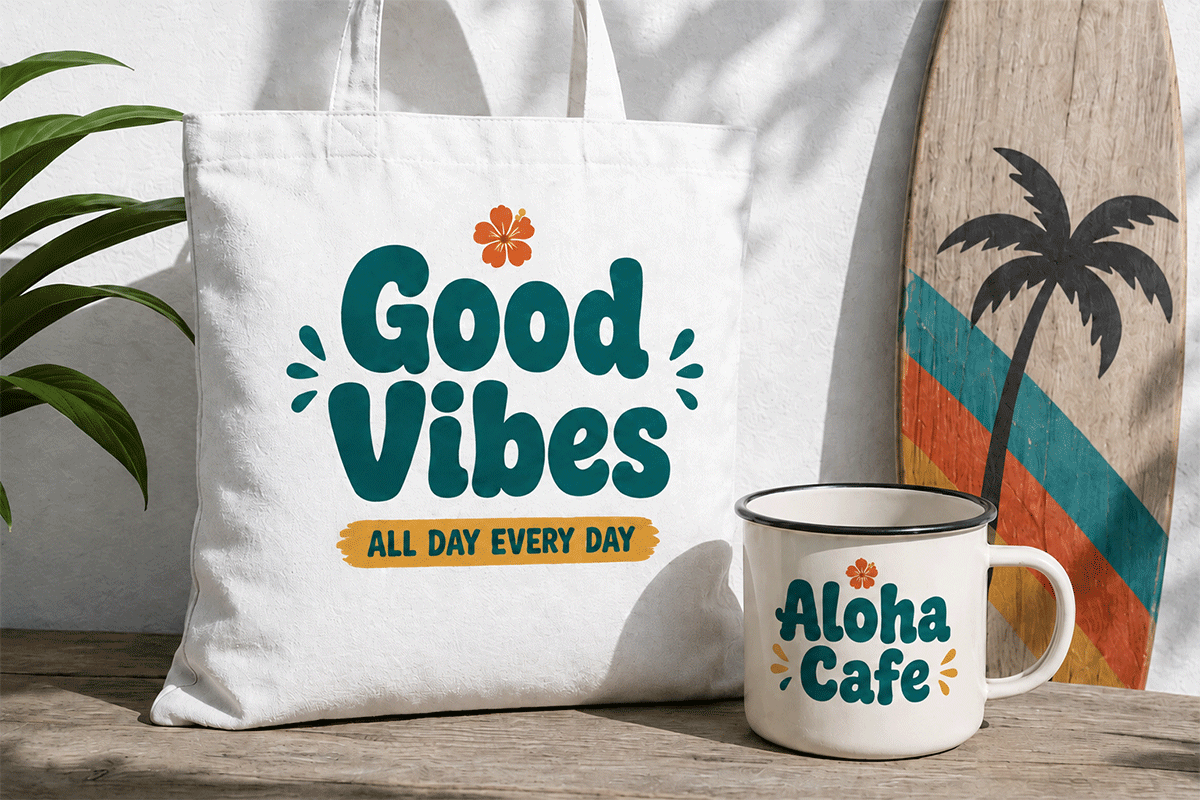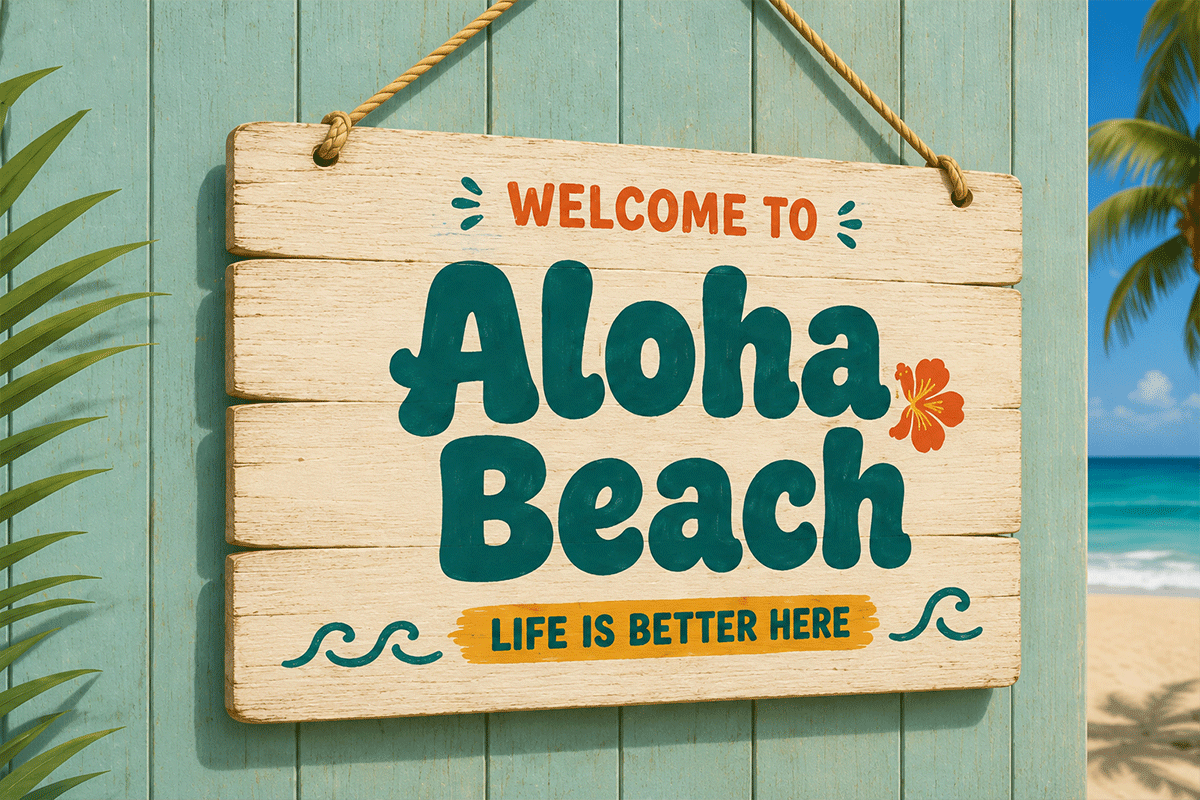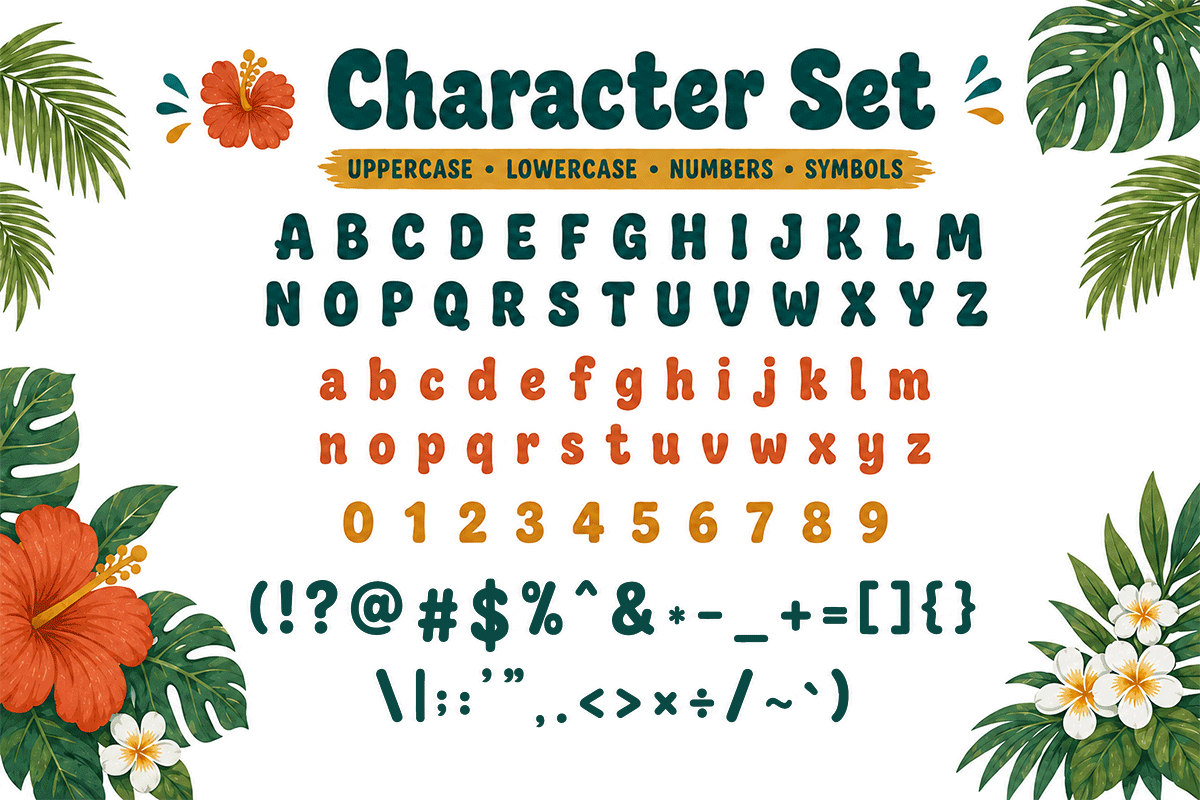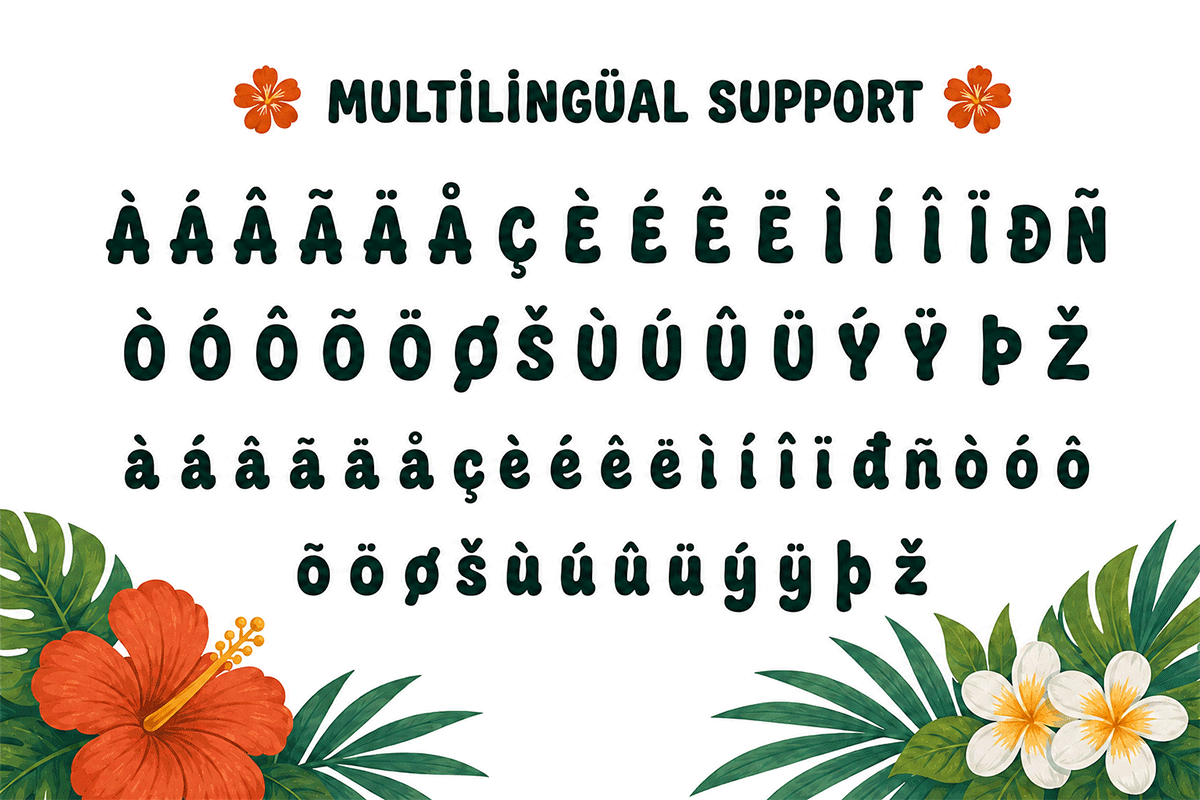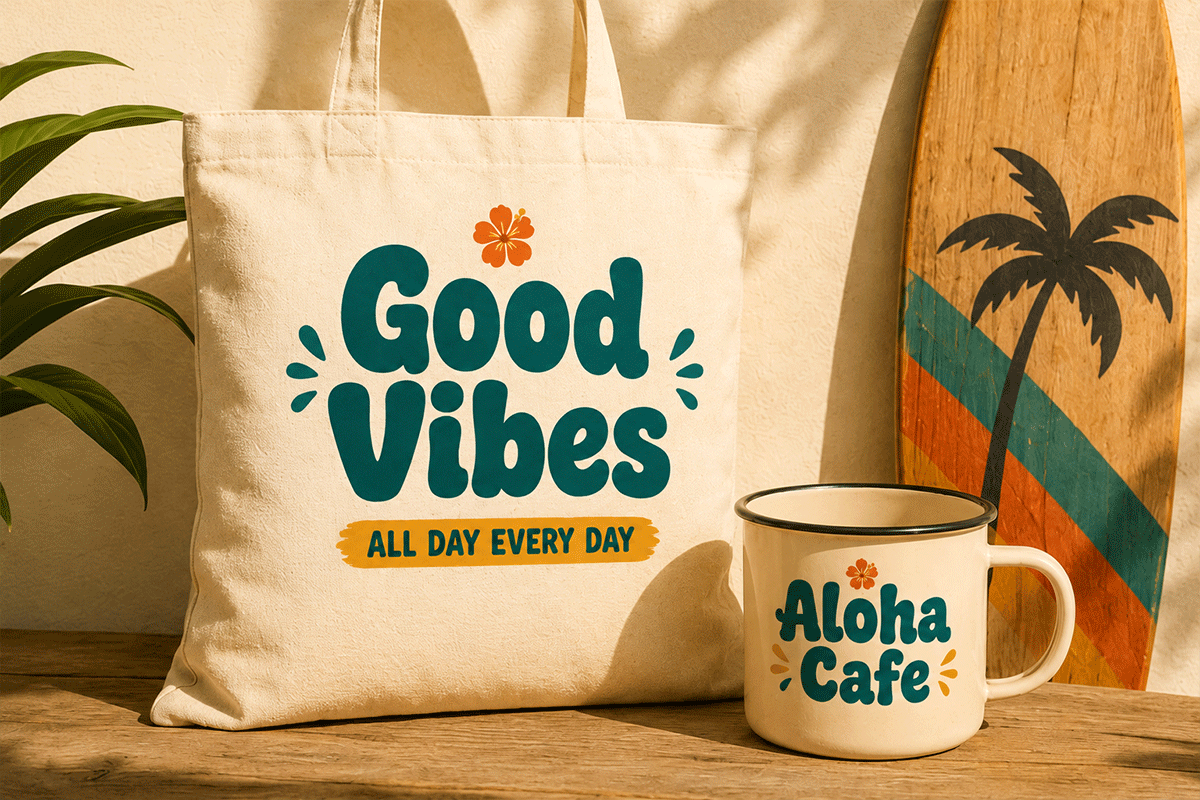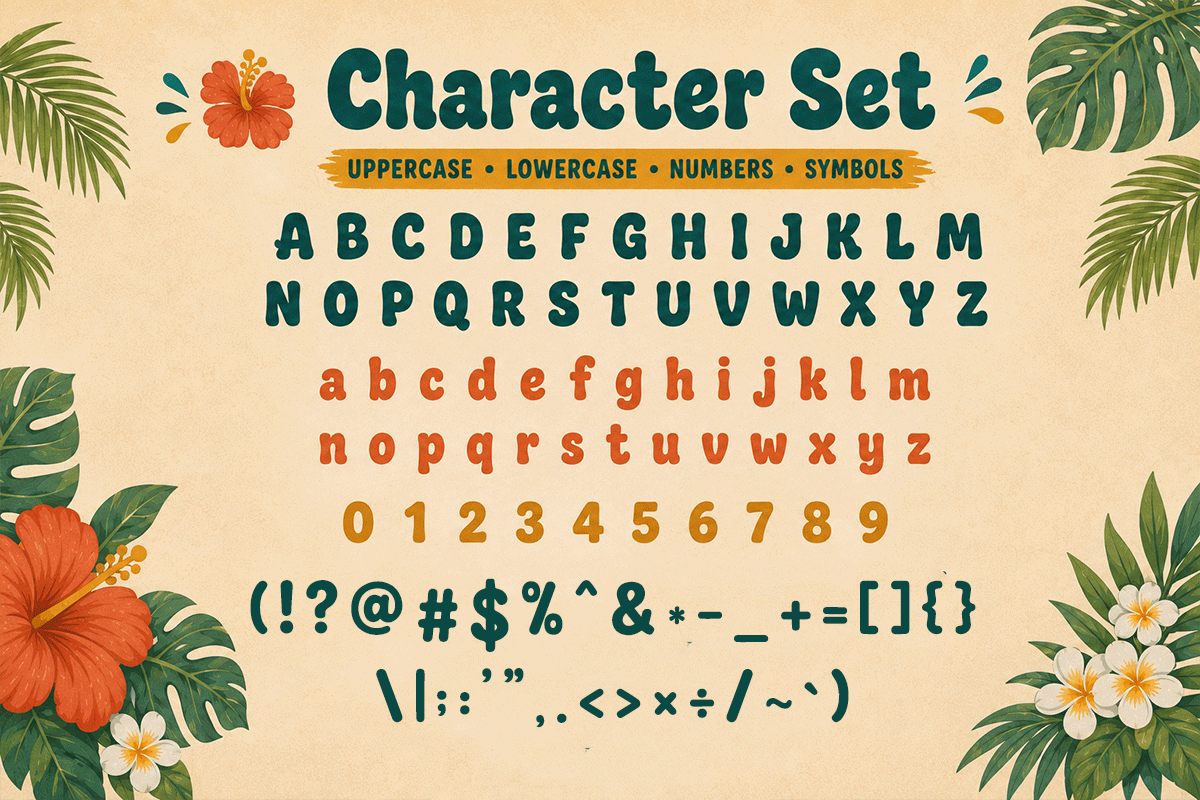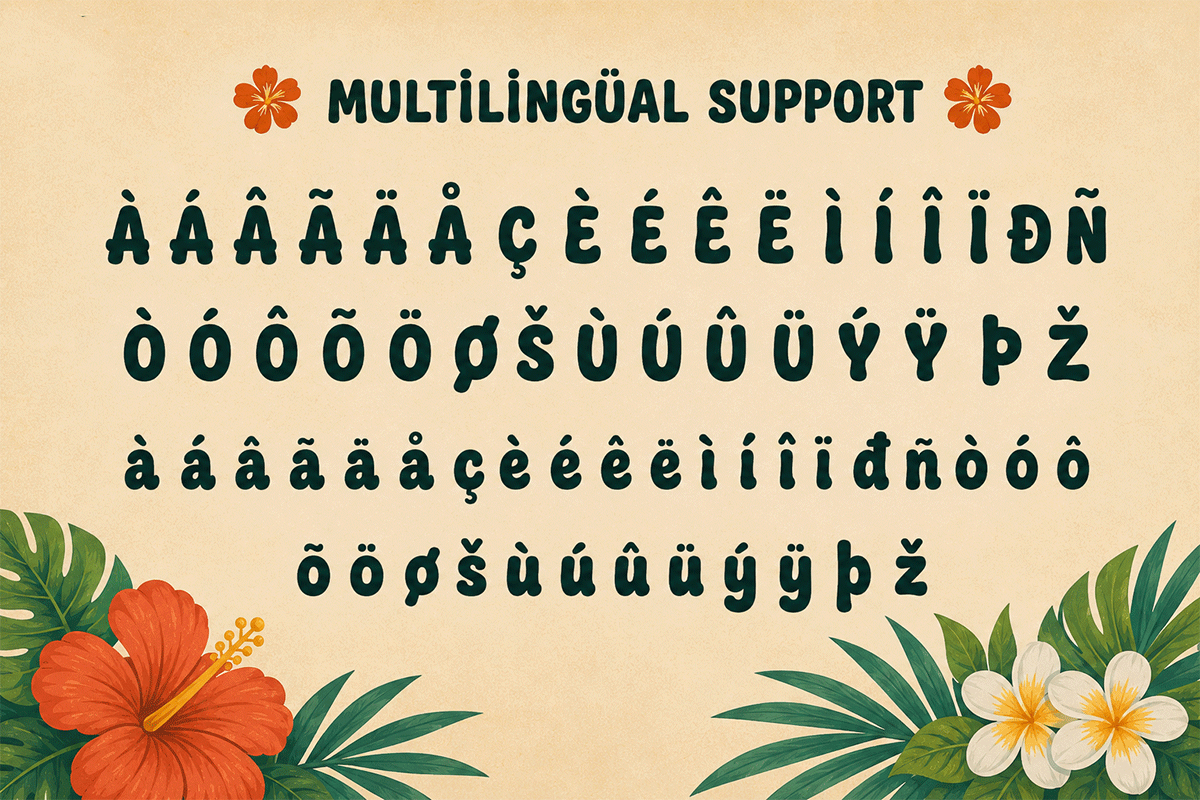
Aloha Vibes A Modern Display Summer Font is a bold, playful display font inspired by the carefree energy of tropical islands, sunny beaches, and endless summer adventures. Its chunky, rounded letterforms bring a warm and friendly personality to every design, making your words feel instantly fun and inviting.
With its soft curves, slightly organic shapes, and cheerful character, Aloha Vibes A Modern Display Summer Font captures the spirit of sun, surf, sand, and good times. The font feels casual yet eye-catching, making it perfect for designs that need a strong headline while keeping a relaxed and approachable mood.
Aloha Vibes A Modern Display Summer Font is ideal for summer branding, beach-themed designs, travel posters, T-shirts, food and beverage packaging, café branding, social media graphics, stickers, kids’ projects, event posters, and tropical merchandise.
Inspired by Hawaiian sunshine, colorful hibiscus flowers, ocean waves, and laid-back island living, Aloha Vibes brings a little piece of paradise to every word.